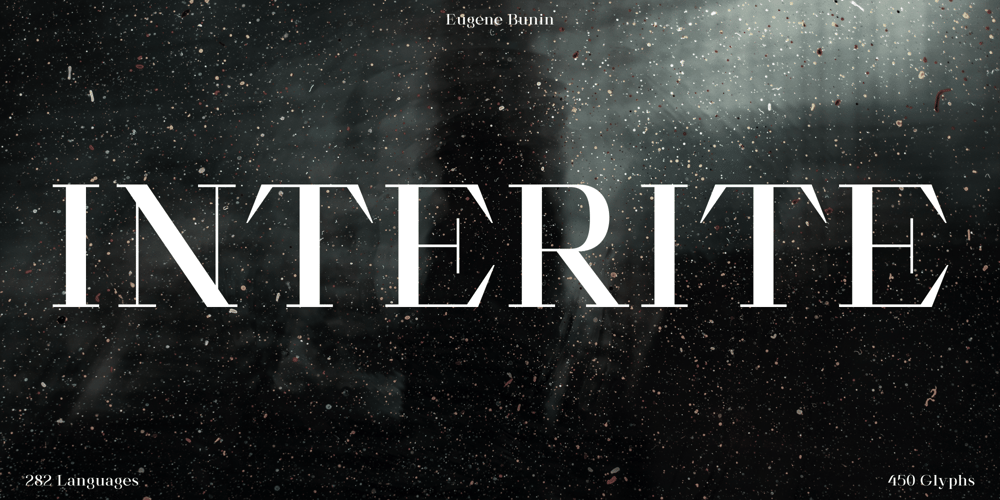
Interite Font Family was designed by Eugene Bunin and published by Harvester Type. Interite contains 1 styles and family package options. Interite is an antique font that is based on square elements that give it an unusual look. Square serifs and unusual shapes of ovals create a solid character and make the font fresh.More language support, ligatures, and alternative characters will increase the font’s usability. 450 glyphs, 282 languages of the Latin group, 12 alternative characters, 14 ligatures, a capital set and more than one day spent for kerning-create a great potential for this font.Text, covers, posters, prints, titles, interfaces, web, book covers, packaging, logos, and much more where you can apply this font.If you find an error in the font, kerning, or just want to add something or suggest something, then write to me: bunineugene@gmail.com